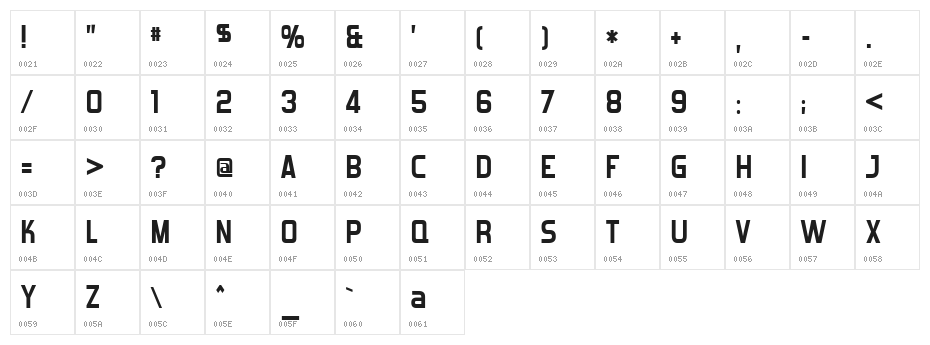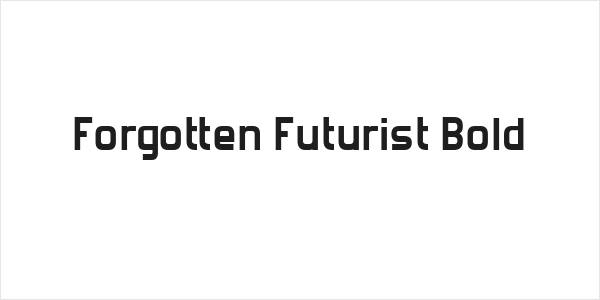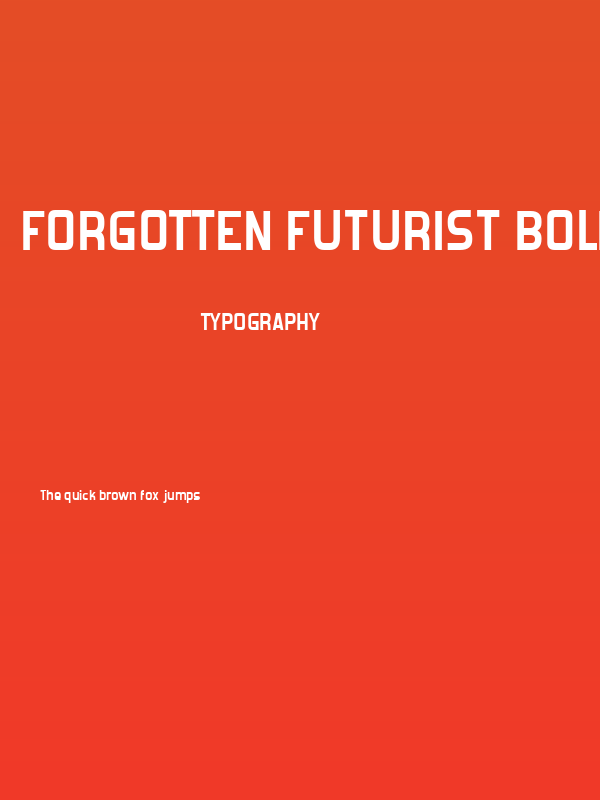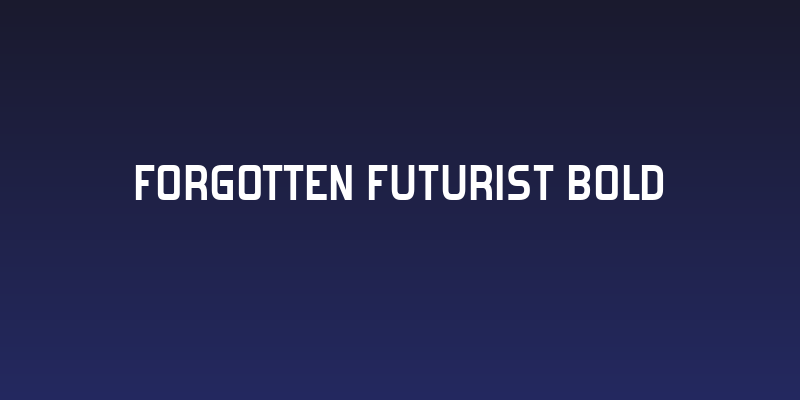
Forgotten Futurist Bold Font
Forgotten Futurist Bold Description
This font features a bold, geometric sans-serif style with a futuristic and modern aesthetic. The characters are structured with clean lines and a uniform stroke width, giving it a strong and assertive presence. The uppercase letters are tall and slightly condensed, while the lowercase letters maintain a consistent height, enhancing readability. The numerals are clear and distinct, matching the overall boldness of the typeface. Special characters are designed to complement the primary alphabet, maintaining the same geometric and modern feel. This font is ideal for projects that require a contemporary and impactful look.
Use CaseHeadlines, Logos, Digital Interfaces
Proposed ProjectsIdeal for technology branding, futuristic posters, digital interfaces, and modern advertising campaigns.